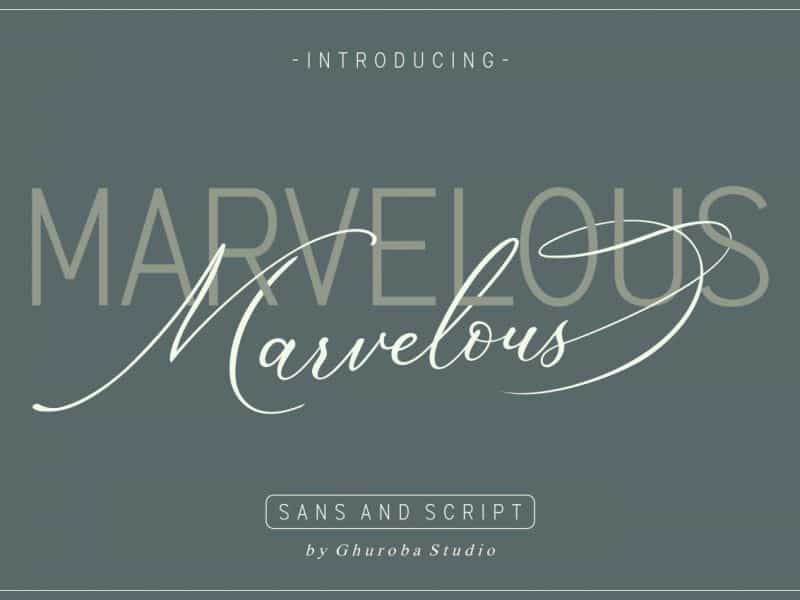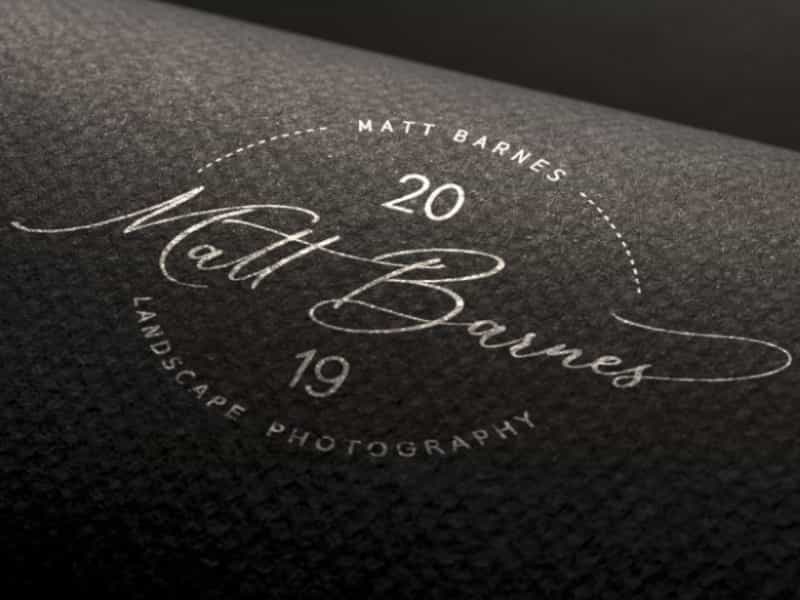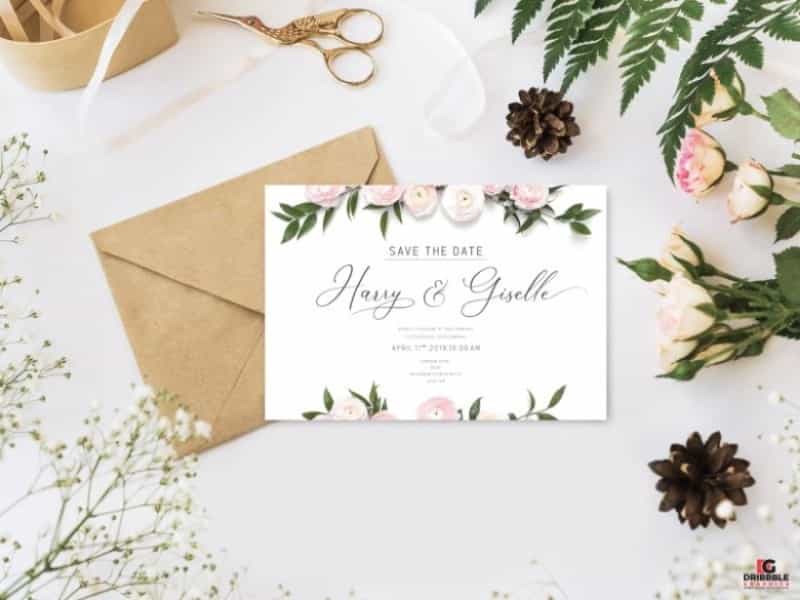
The Marvelous is an impressive duo of the most beautiful script and sans fonts, which are created to go together beautifully with elegance and a modern style. It is an ideal choice for branding, invitations, business cards, weddings, logo design, quotes, product packaging and many other things.